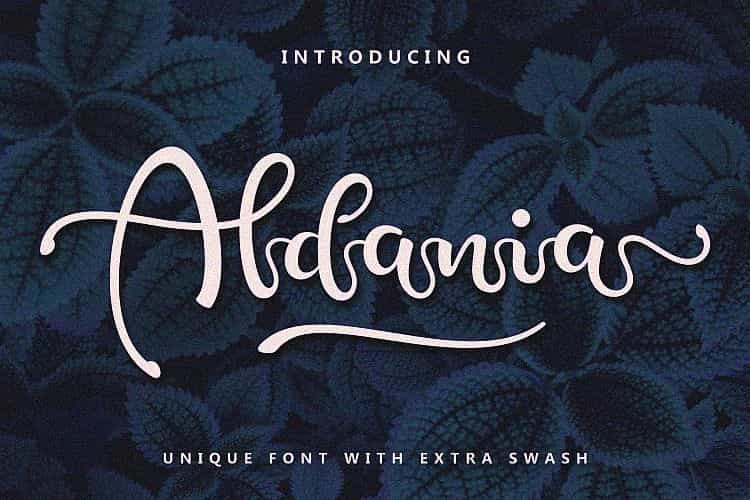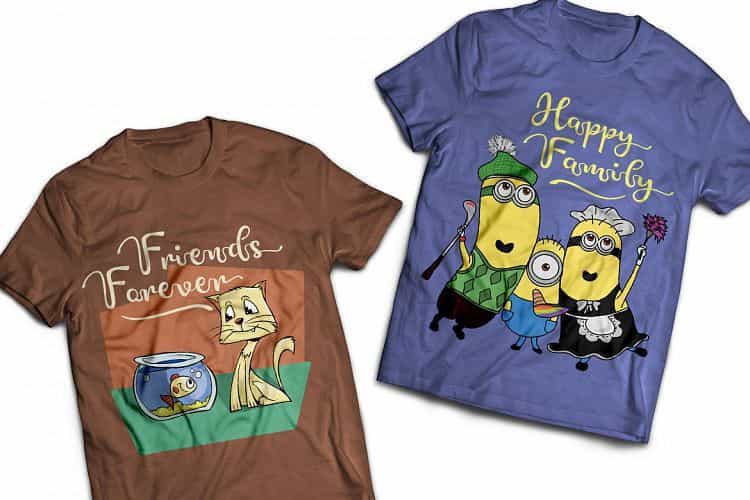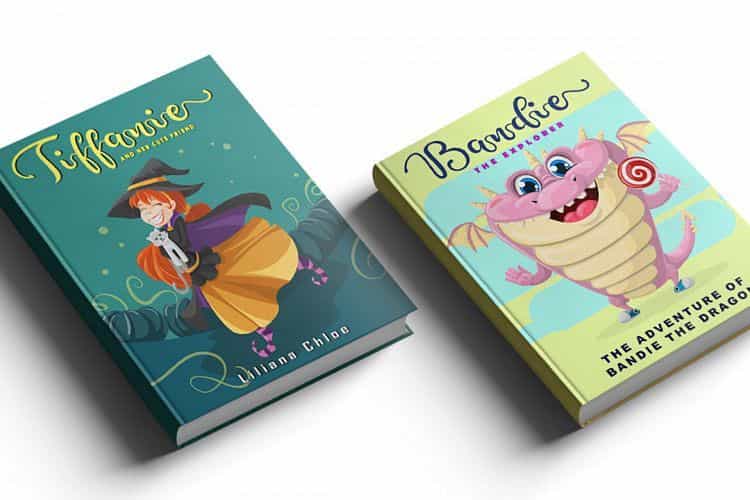
Aldania Script Font is a beautiful brilliant hiring font with a unique creative characteristic and fantastic swash. Fall in love with its sweet and adorable charm and use it for any creative project which needs a lovely spark. So beautiful on invitation like greeting cards, branding materials, business cards, quotes, posters, and more!!